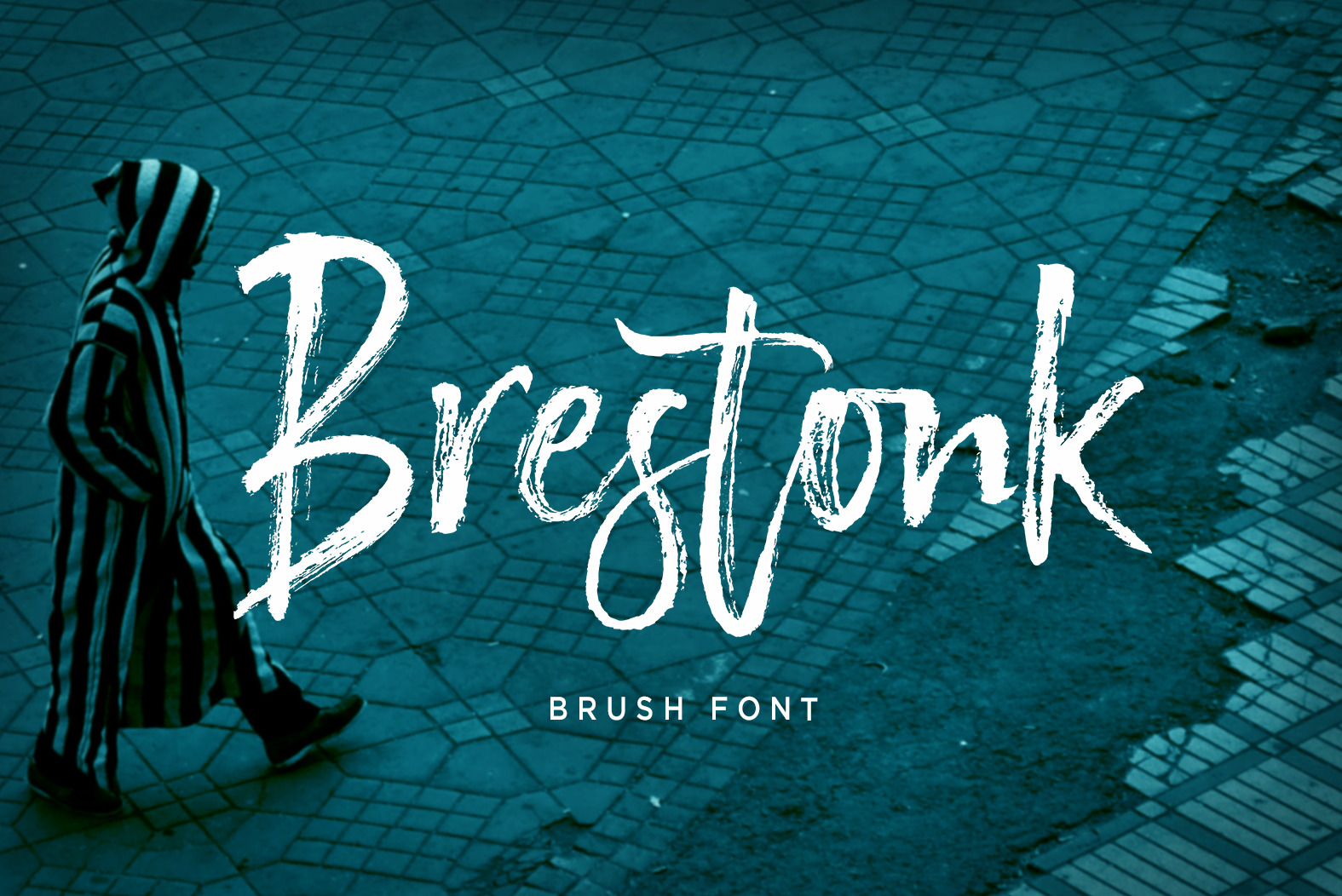
Brestonk Brush Font
Brestonk Brush Font is a new font with textured stroke detail, also provided some ligatures and swashes extra.
Perfect for projects posters, logos, product packaging, invitations, greeting cards, brands, news, blogs, everything including personal charm etc.